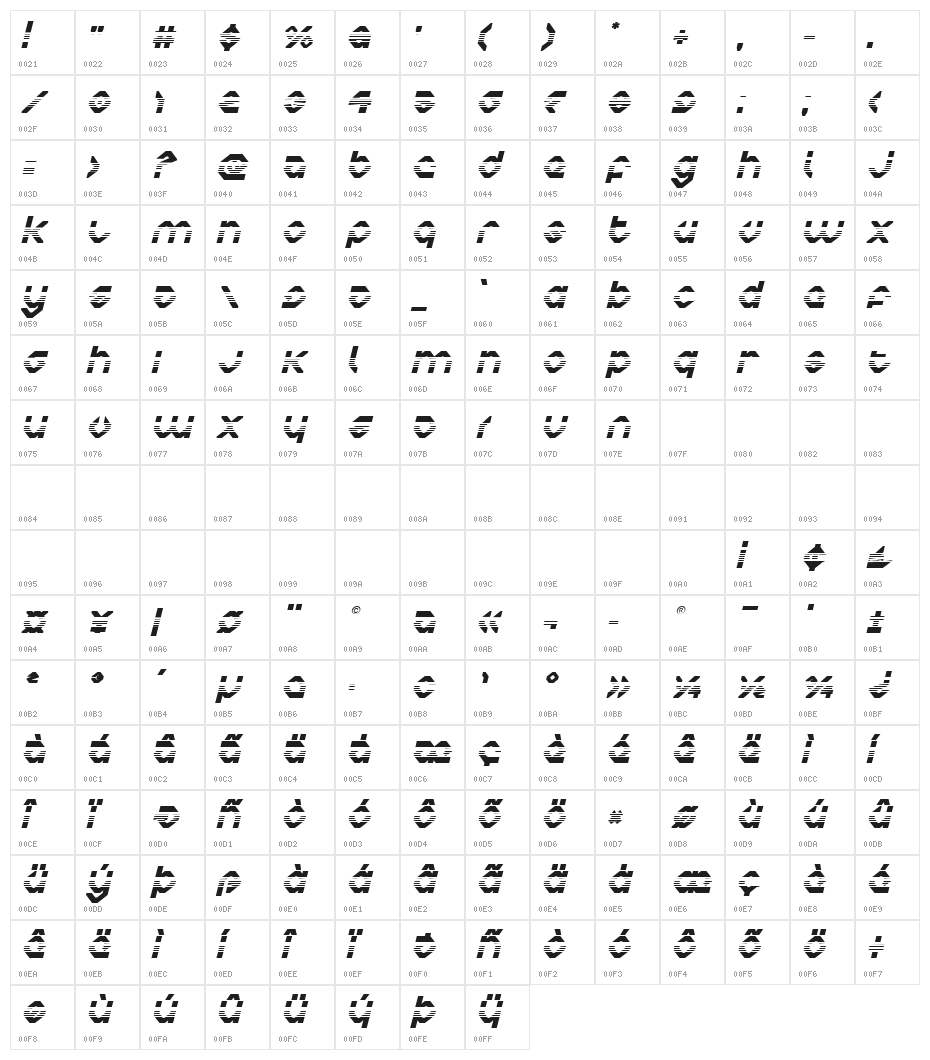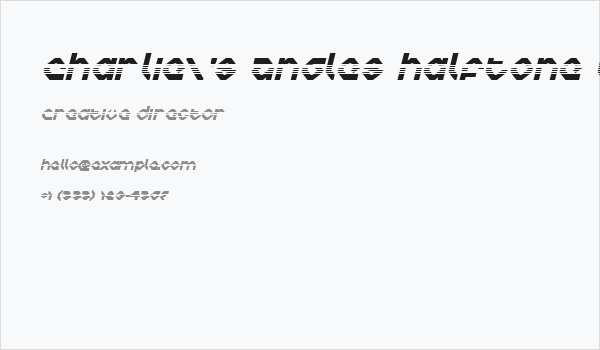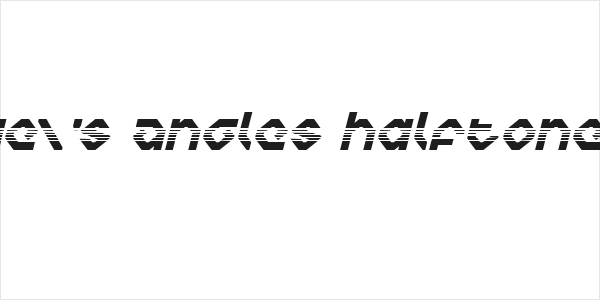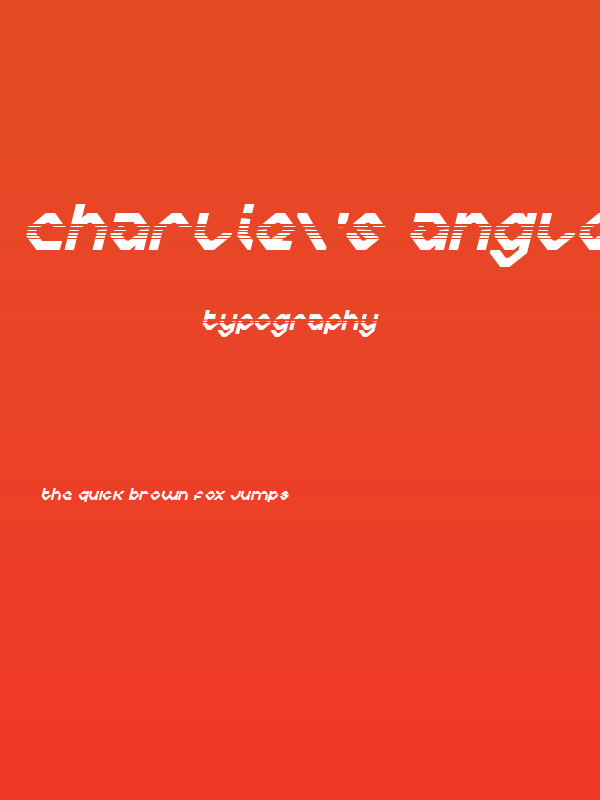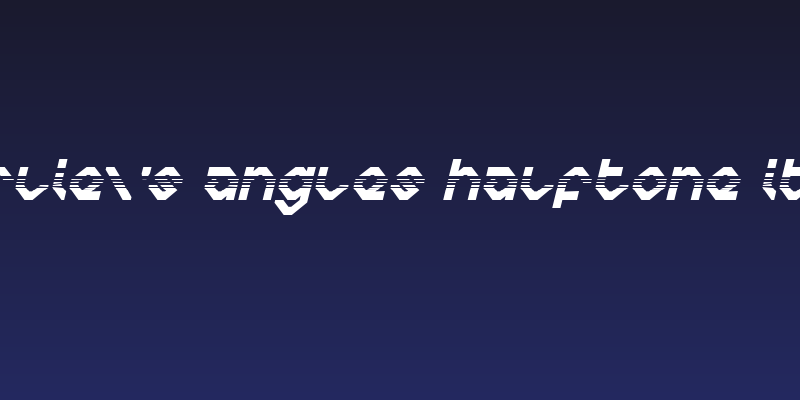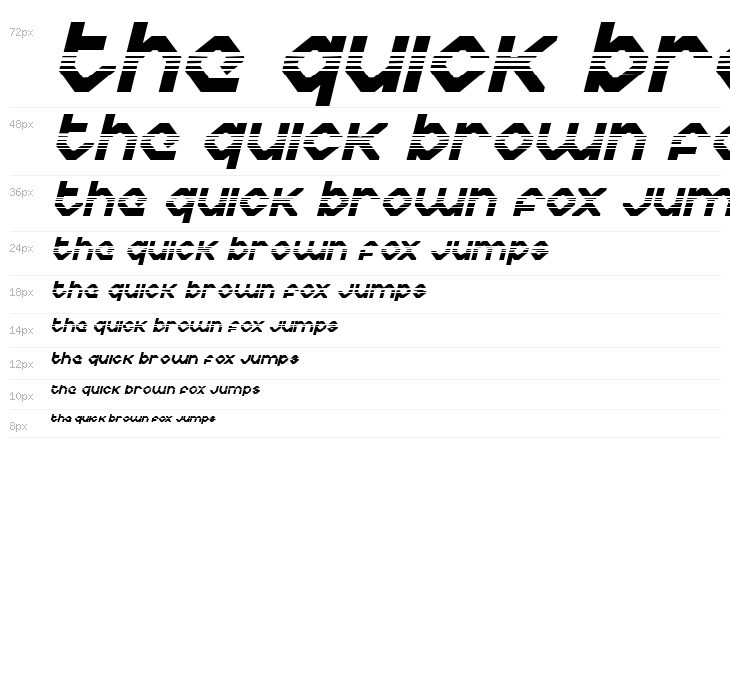
Charlie's Angles Halftone Italic Font
Charlie's Angles Halftone Italic Description
This font features a bold, italicized style with a unique halftone effect that creates a dynamic, modern appearance. The characters are composed of solid black sections interspersed with horizontal white stripes, giving them a sense of movement and energy. The angular design of the letters adds a futuristic and edgy feel, making it stand out in any design project. The font maintains consistent spacing and alignment, ensuring readability despite its decorative elements. Its distinctive style is ideal for projects that require a bold statement or a modern, tech-inspired look.